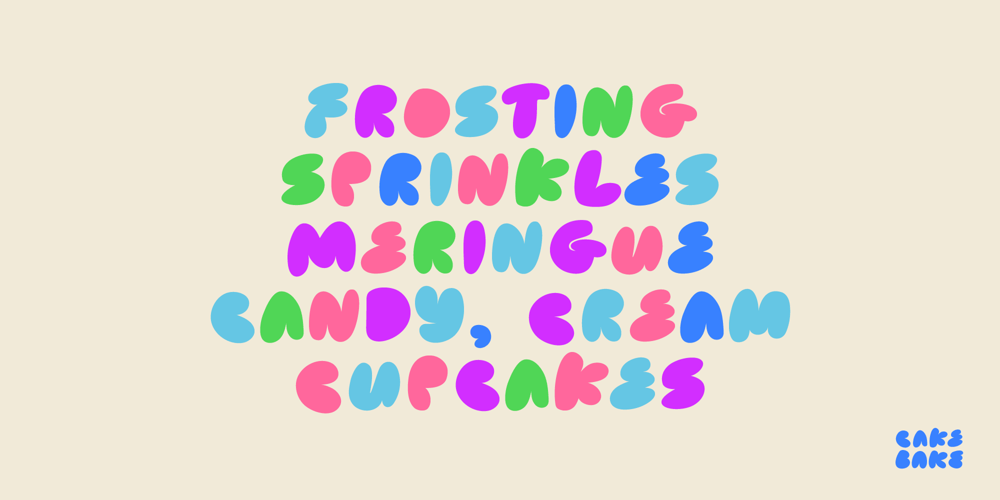
Cake Bake Font Family was designed by Adam Greasley and published by wearecolt. Cake Bake contains 2 styles and family package options. There’s always time for Cake!Check out my latest display font – Cake Bake. It’s a fun bubble font full of character, with 70’s retro vibes. An all uppercase type (alternate uppers on the lowercase keys) hand drawn for a natural flow and feel.Use this for logos, headings, book titles, quotes, or whatever you want to add a splash of cheeky fun.For good measure, I added an outline version… you’re welcome.More Colt Type Co. fonts